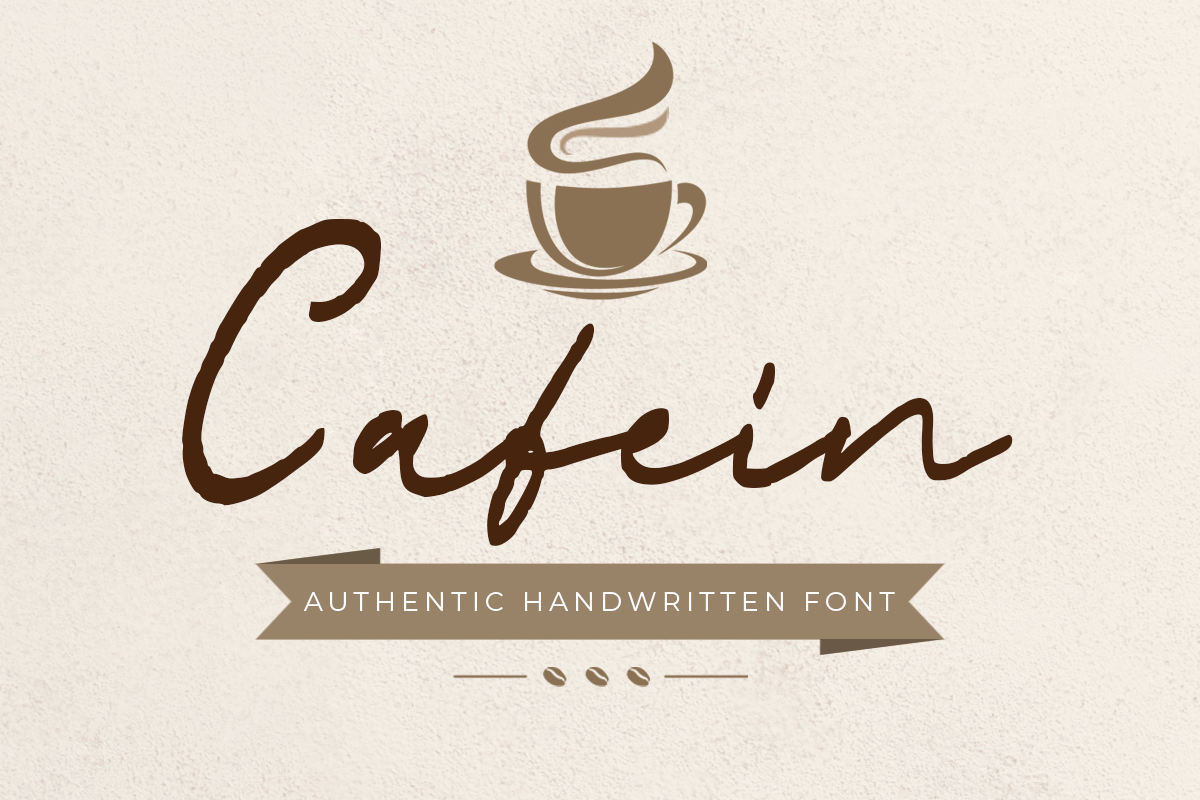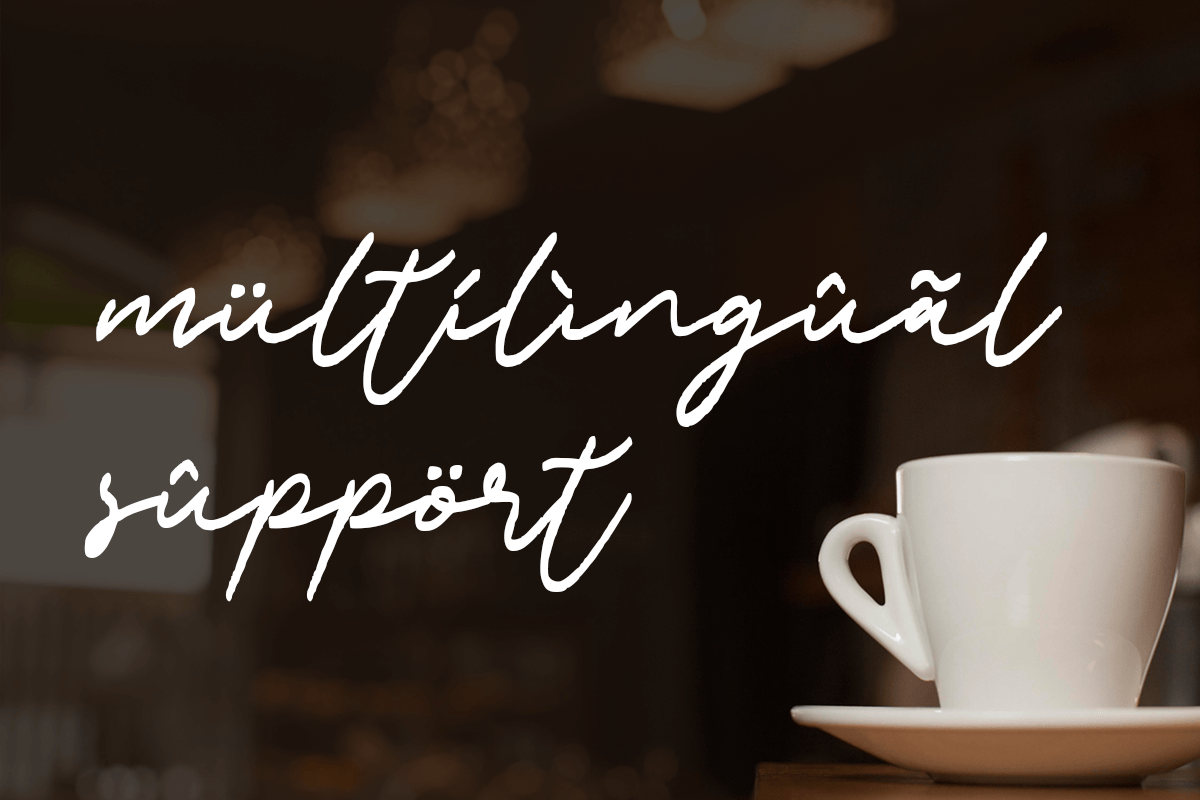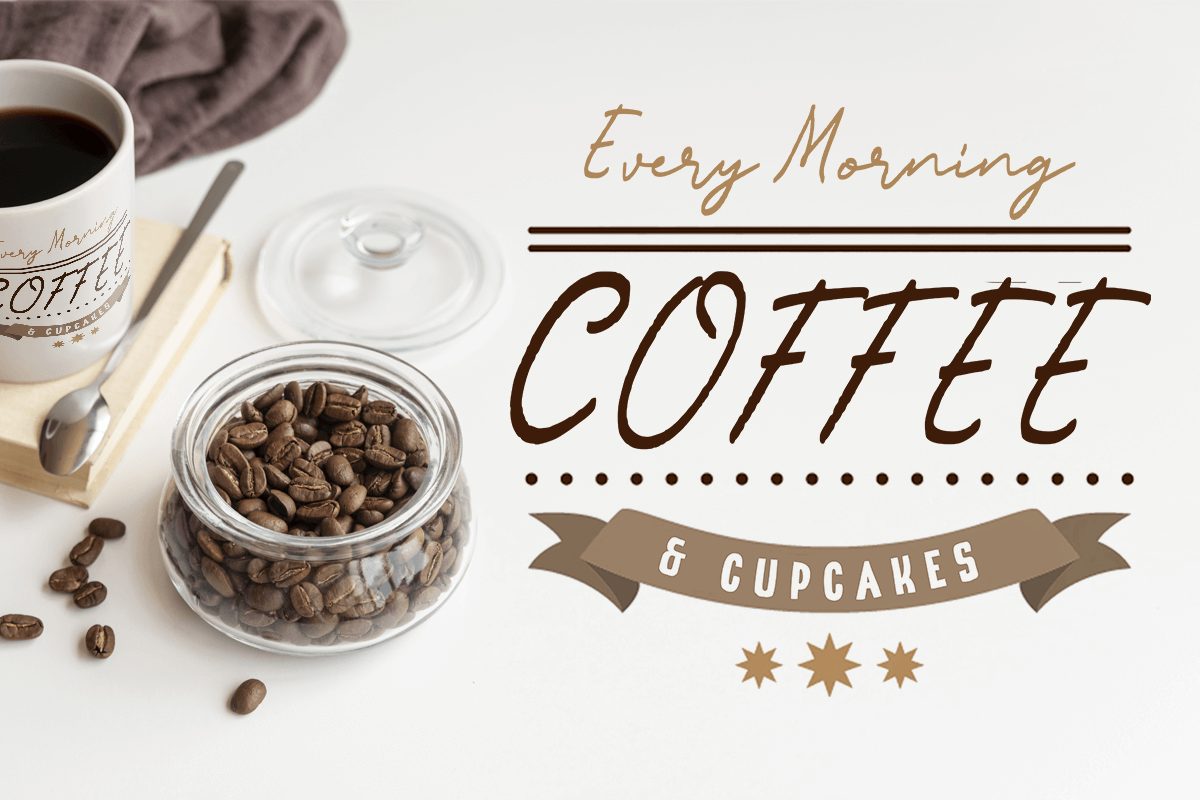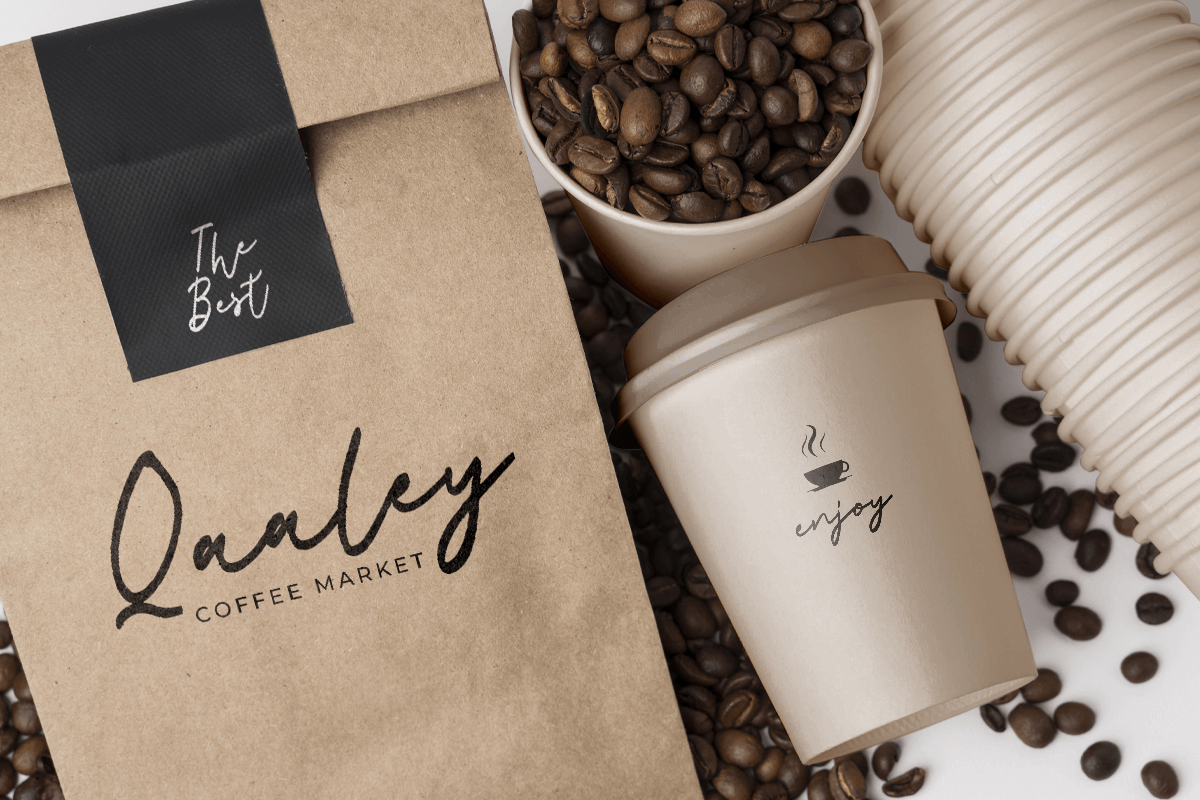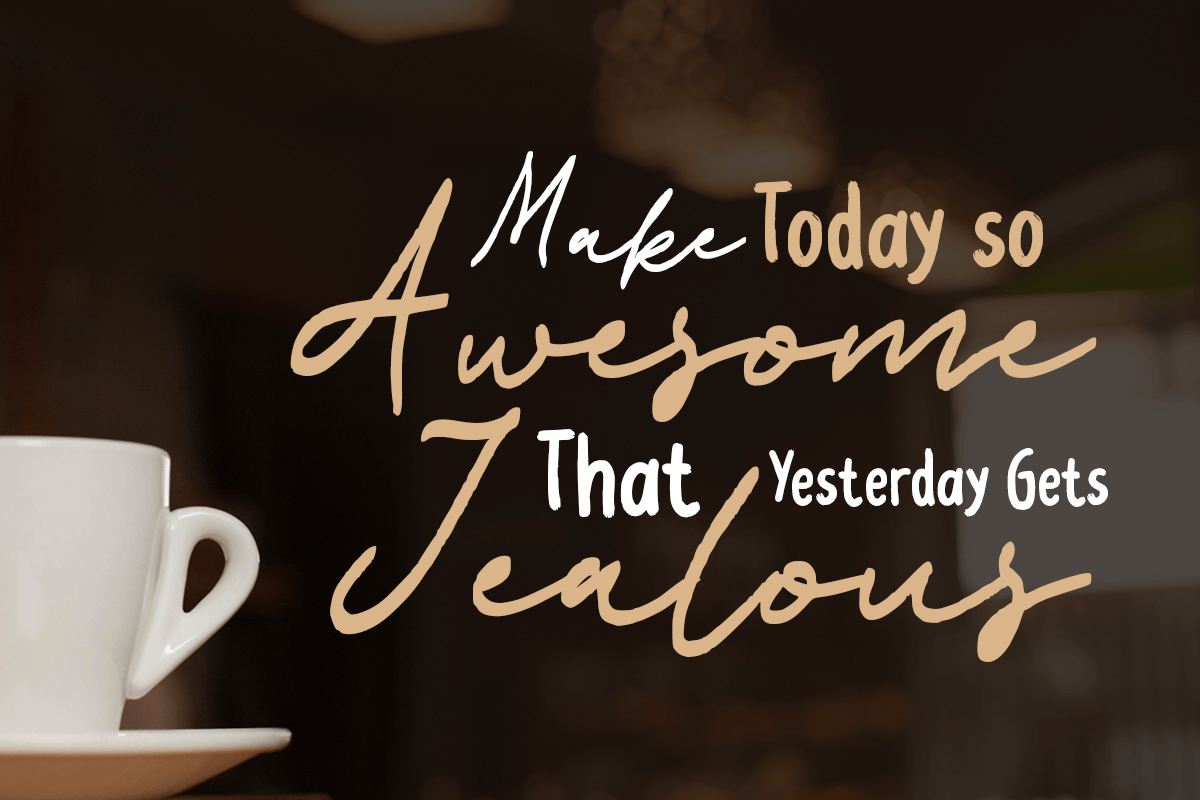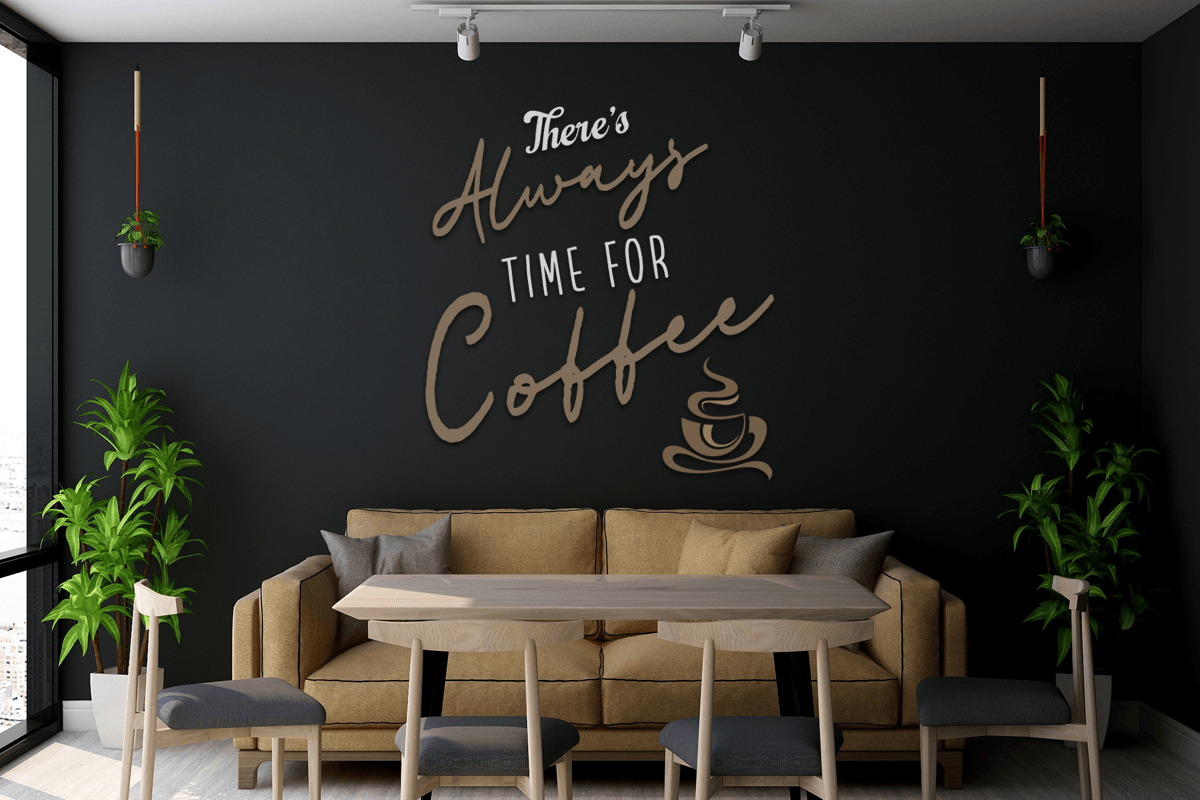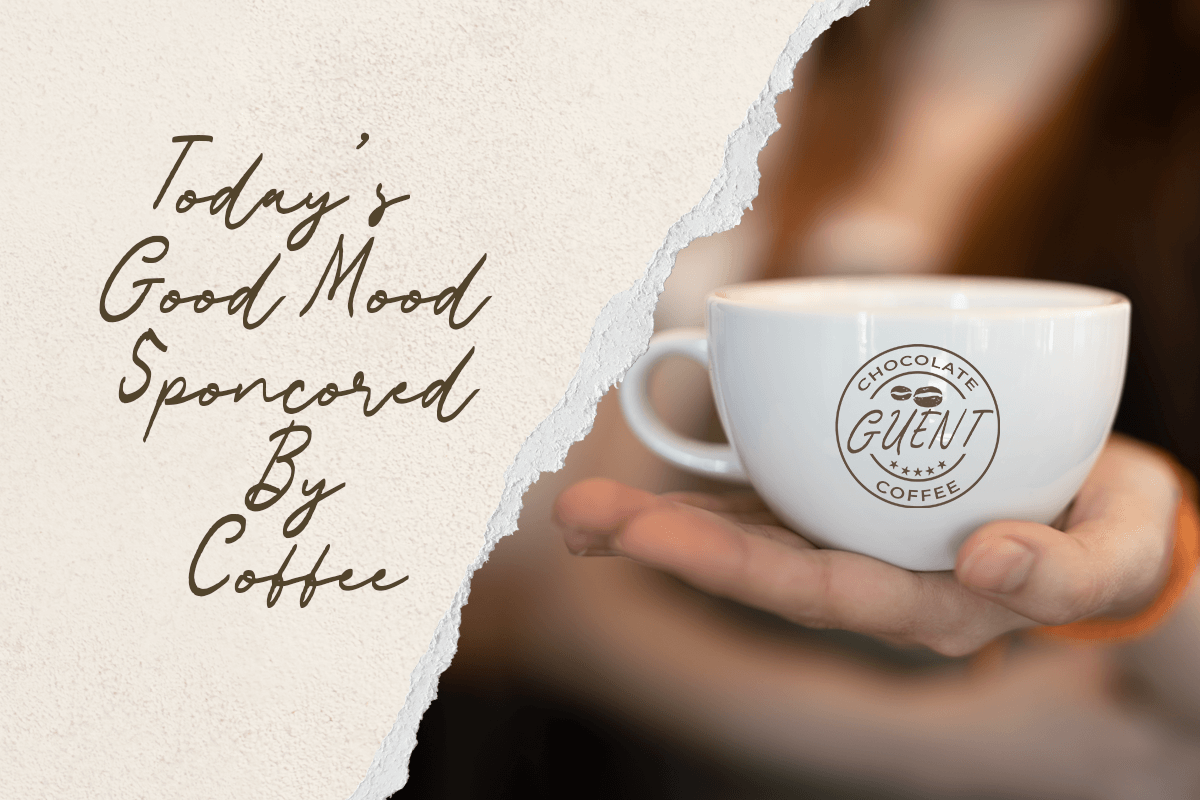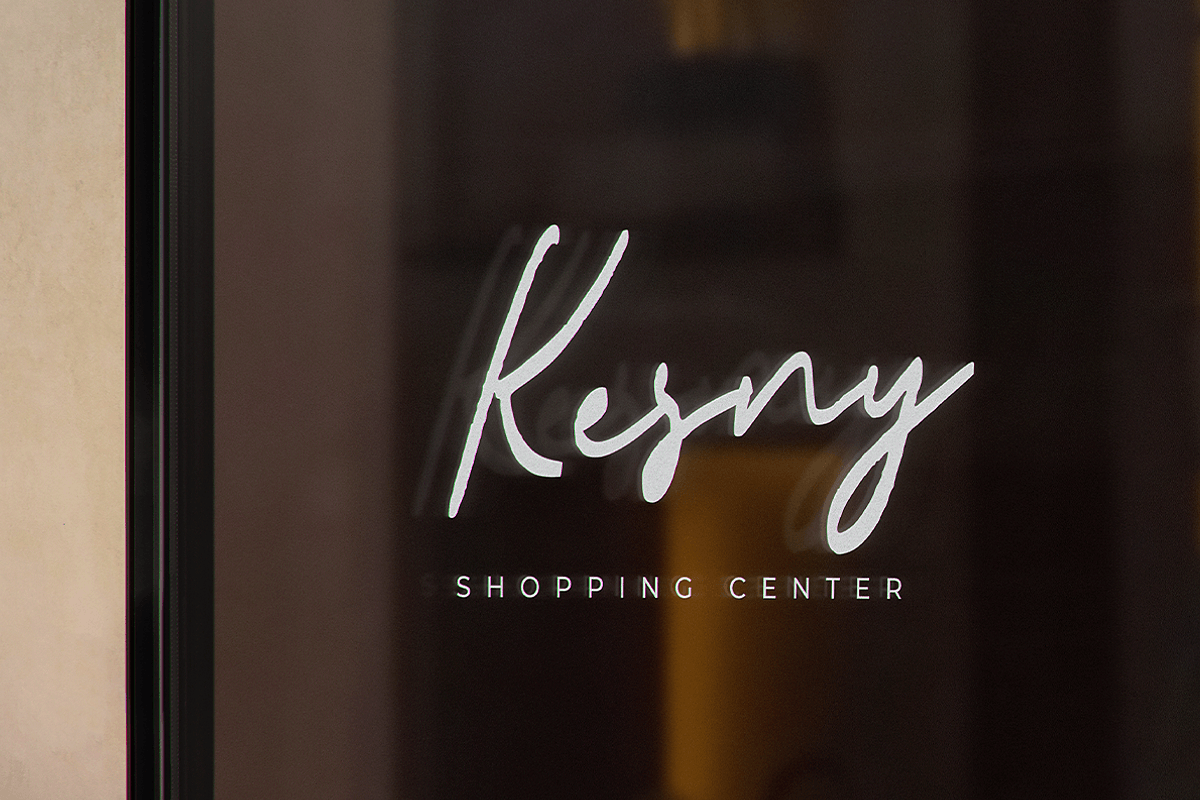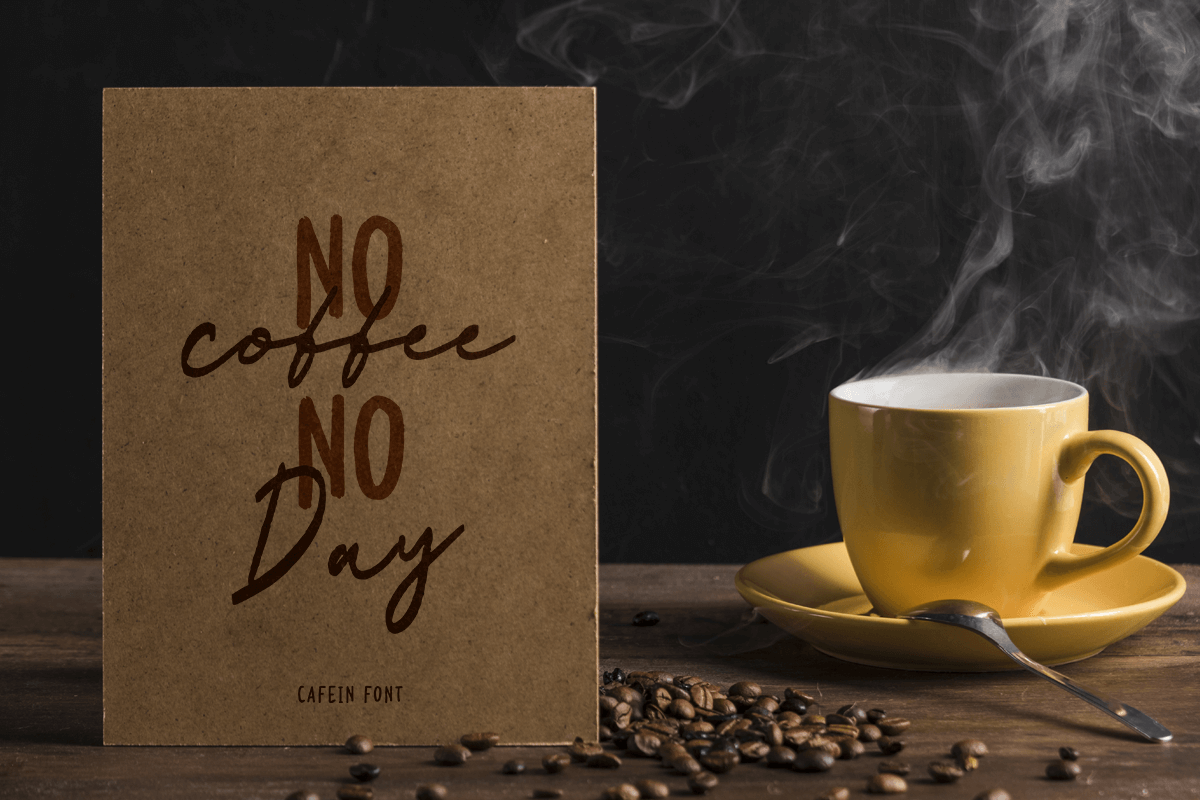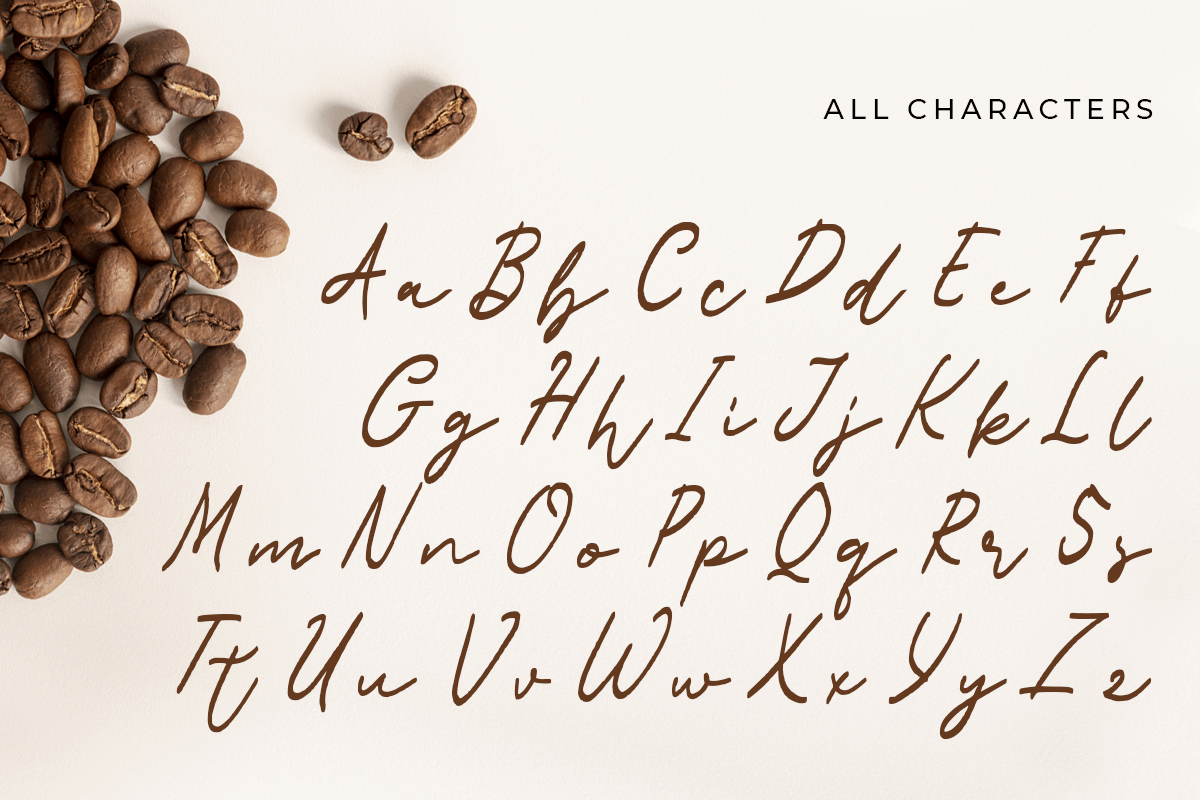
Cafein
-Authentic Handwritten Font
Cafein
Cafein is a Authentic Handwritten Font with natural, fun, modern, and enjoy style. This font crafted specials for funny-themed projects, ready to use on branding, Social Media, Logo, and Many more that needs charming touches.